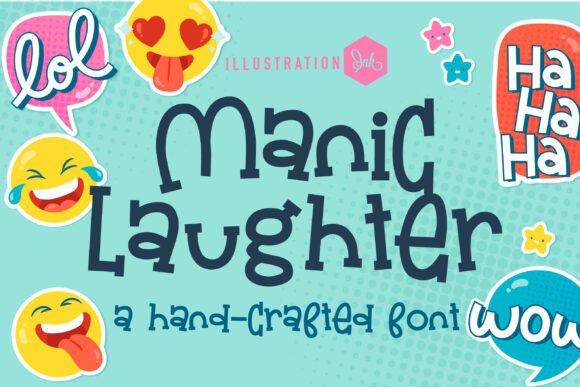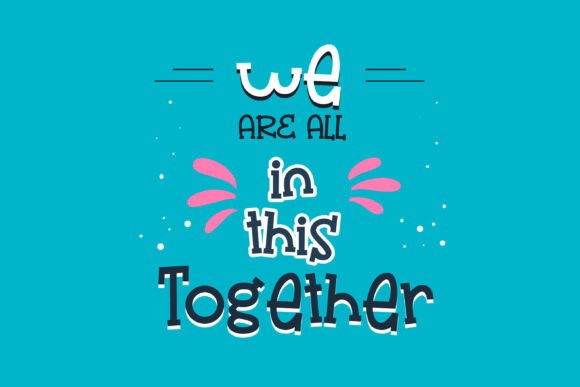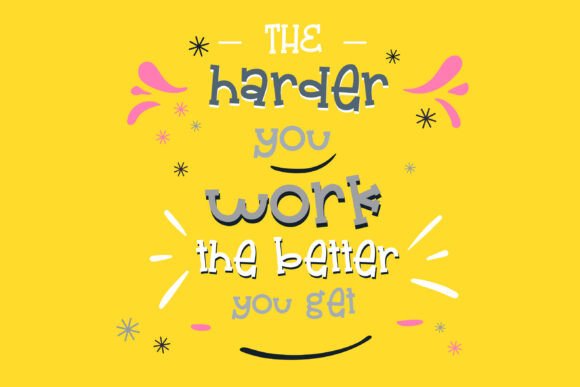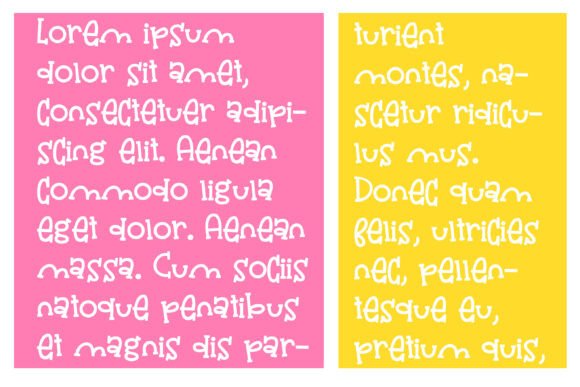
Manic Laughter Font
About the Manic Laughter Font
Experience the unique personality of Manic Laughter Font, a font designed for impact. This hand-crafted font is a whimsical print with hand-crafted slab serifs throughout.
Manic Laughter’s playful, slightly erratic nature makes it ideal for headlines, short bursts of text in posters, or branding elements needing a quirky touch. It works exceptionally well for projects targeting younger demographics or those with a fun, informal brand identity. Avoid using it for body text or lengthy paragraphs; its whimsicality becomes distracting and difficult to read at smaller sizes.
Consider pairing Manic Laughter with a clean sans-serif like Open Sans for a balanced contrast, or a more geometric sans-serif for a modern feel. For a more vintage aesthetic, a simple serif like Garamond could work, providing a grounding element to the font’s energetic personality. Script fonts should be avoided as they might create visual clutter.
The font’s overall personality is best described as bold and whimsical, conveying a sense of fun and energy. It is not suited for projects requiring elegance or sophistication; its strength lies in conveying excitement and lightheartedness.
Manic Laughter Font Usage Examples
Manic Laughter Font Example